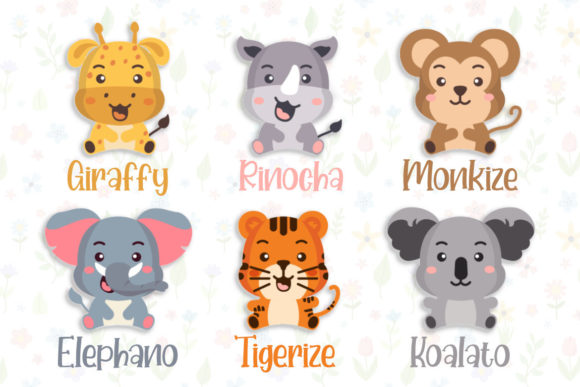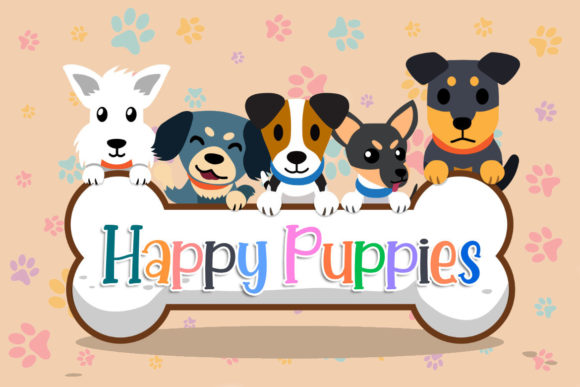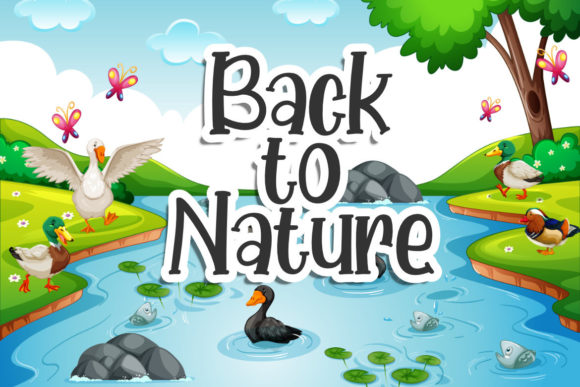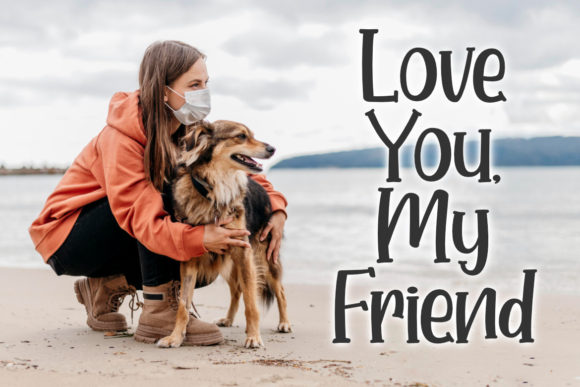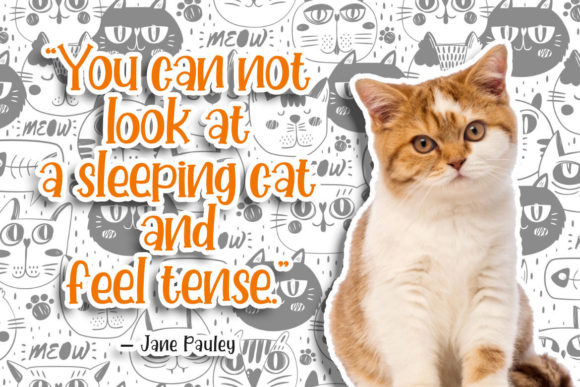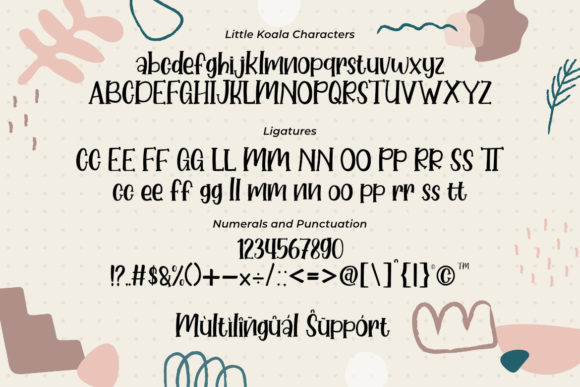
Introduction to Little Koala Font
As a designer, there’s nothing quite like the thrill of finding the perfect font to bring your creative project to life. I recall a moment when I stumbled upon a quirky illustration that needed just the right touch – a playful, whimsical font that would transport the viewer to a world of childhood wonder. That’s when I discovered the Little Koala Font, a delightful serif font that stole my heart with its charming character.
With its high quality design and versatility, the Little Koala Font has quickly become a favorite among designers, perfect for everything from cartoon-related designs to children’s games. Whether you’re working on a free download or a commercial project, this font is a valuable addition to your design resource arsenal. And the best part? It’s available for free, making it a wonderful resource for designers of all levels.
Key Features of Little Koala Font
- High-quality, hand-drawn design suitable for creative projects
- Features a playful and cute design, perfect for children’s books, educational materials, and other family-friendly projects
Honest Review: Little Koala Font
I recently had the chance to work with the Little Koala Font, and I must say it’s a delightful addition to any design project. ✨ This high-quality font is perfect for creating a whimsical and playful atmosphere in your work.
- ✨ Whimsical and playful design style
- ✨ High-quality font with crisp lines
However, there are a few limitations to consider. ⚠️ The font may not be suitable for more formal or professional projects, as it has a decidedly childlike feel. Additionally, the font family is relatively small, so you may find yourself relying on other fonts to complement the Little Koala Font.
Overall, I’m impressed with the Little Koala Font, and I think it’s a great addition to any design resource library. With its playful design style and high-quality construction, it’s sure to bring a smile to the faces of your design recipients.
Tips for Getting the Most Out of Little Koala Font
To get the most out of the Little Koala Font, try combining it with other design elements, such as illustrations and graphics, to create a unique and eye-catching design. You can also experiment with different font sizes and colors to add emphasis and visual interest.
Common Use Cases for Little Koala Font
The Little Koala Font is perfect for a variety of creative projects, including children’s books, party invitations, and social media graphics. Its unique and playful design makes it a great choice for designers looking to add a touch of whimsy to their work.